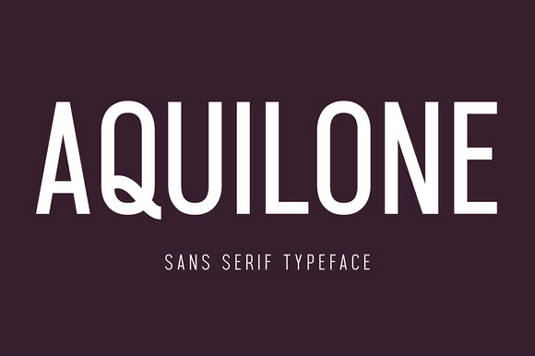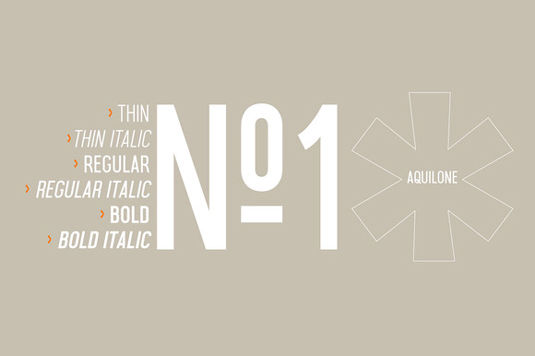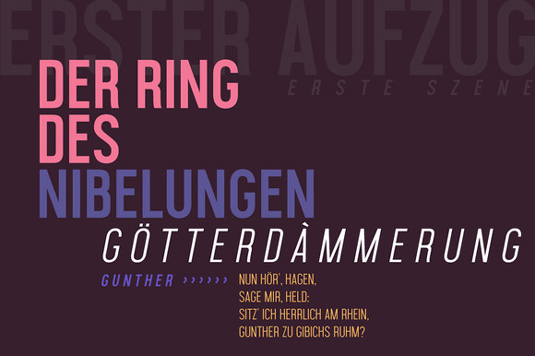
Font of the day: Aquilone
Aquilone by Magdalena Boffito
Today's font of choice is condensed, geometric sans Aquilone. Simple and functional, Aquilone was created by designer Magdalena Boffito. It includes stylistic alternates and multiple language support.